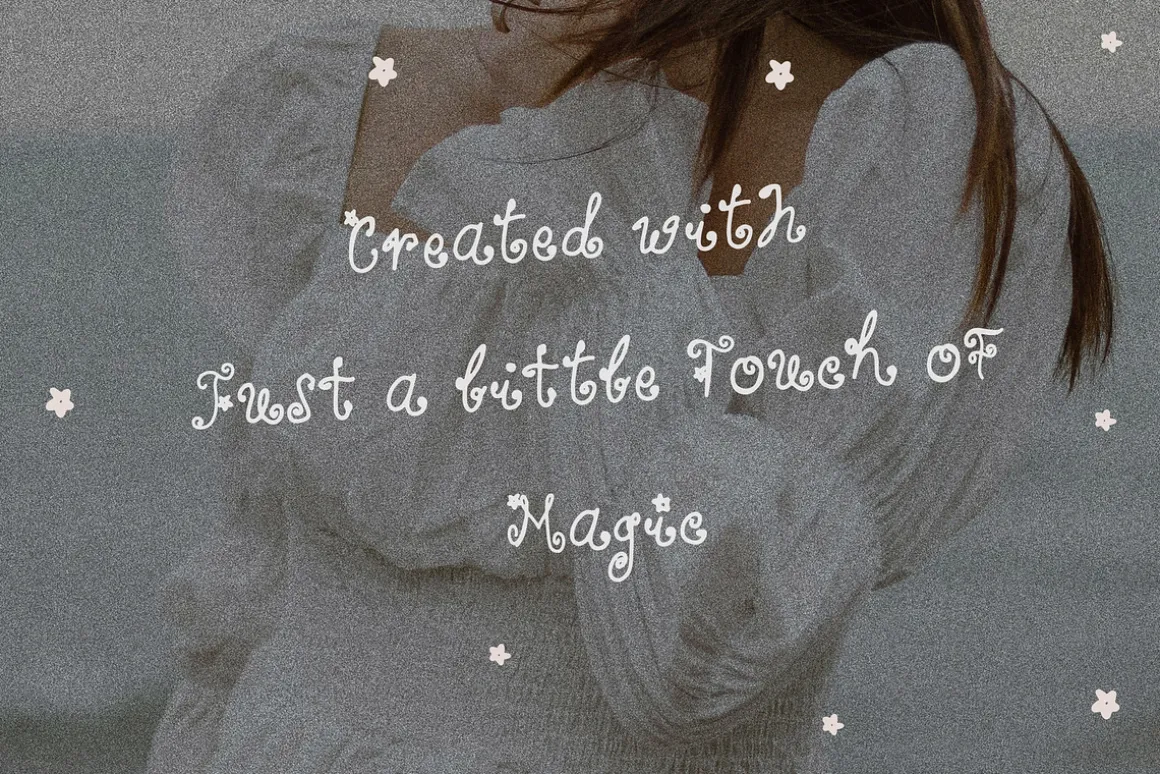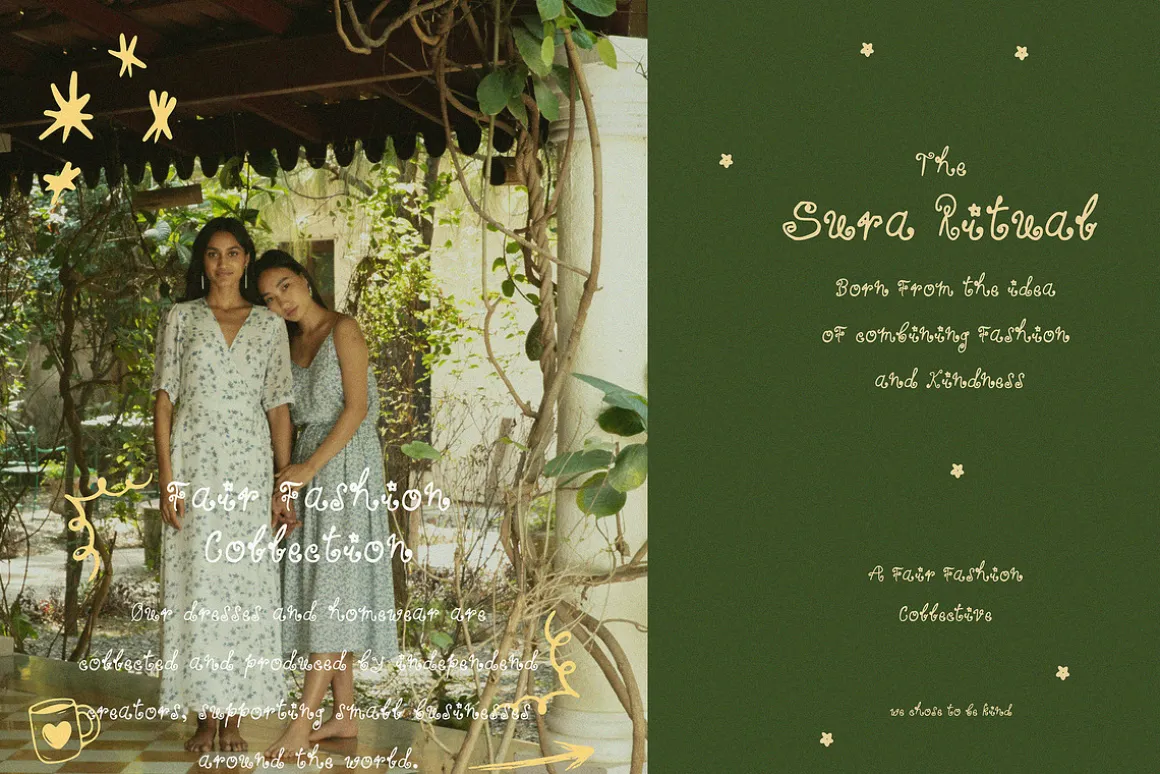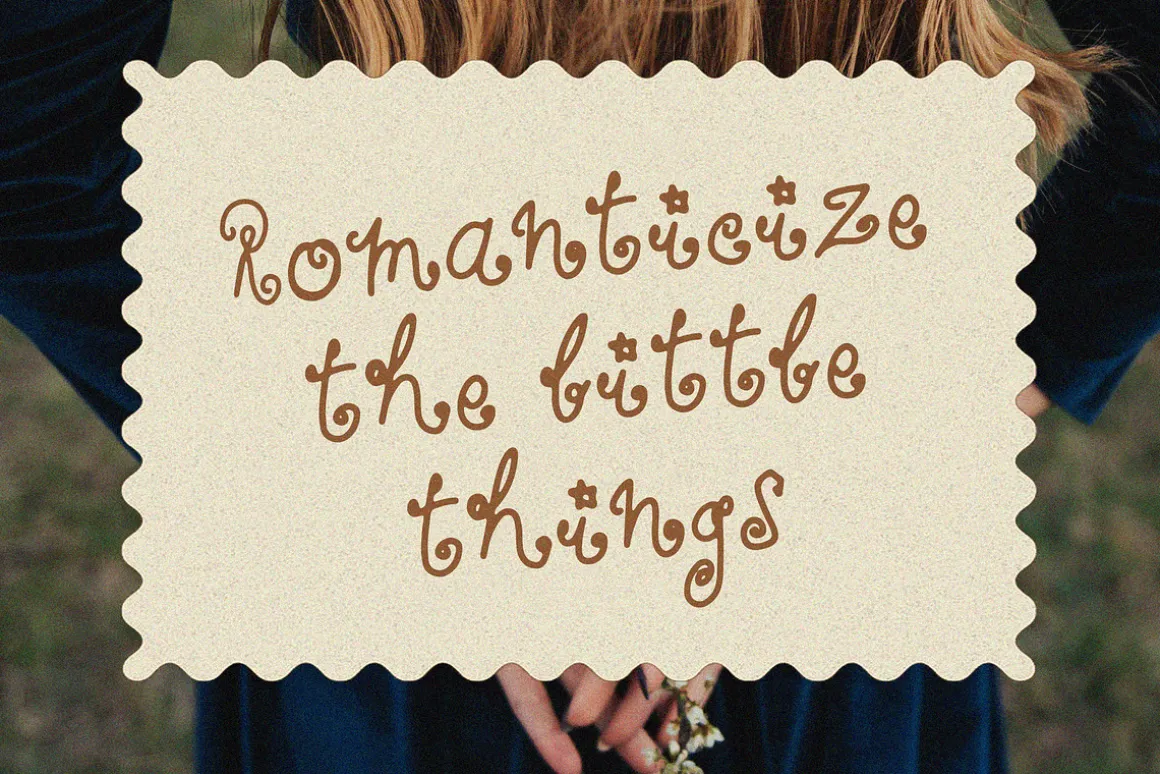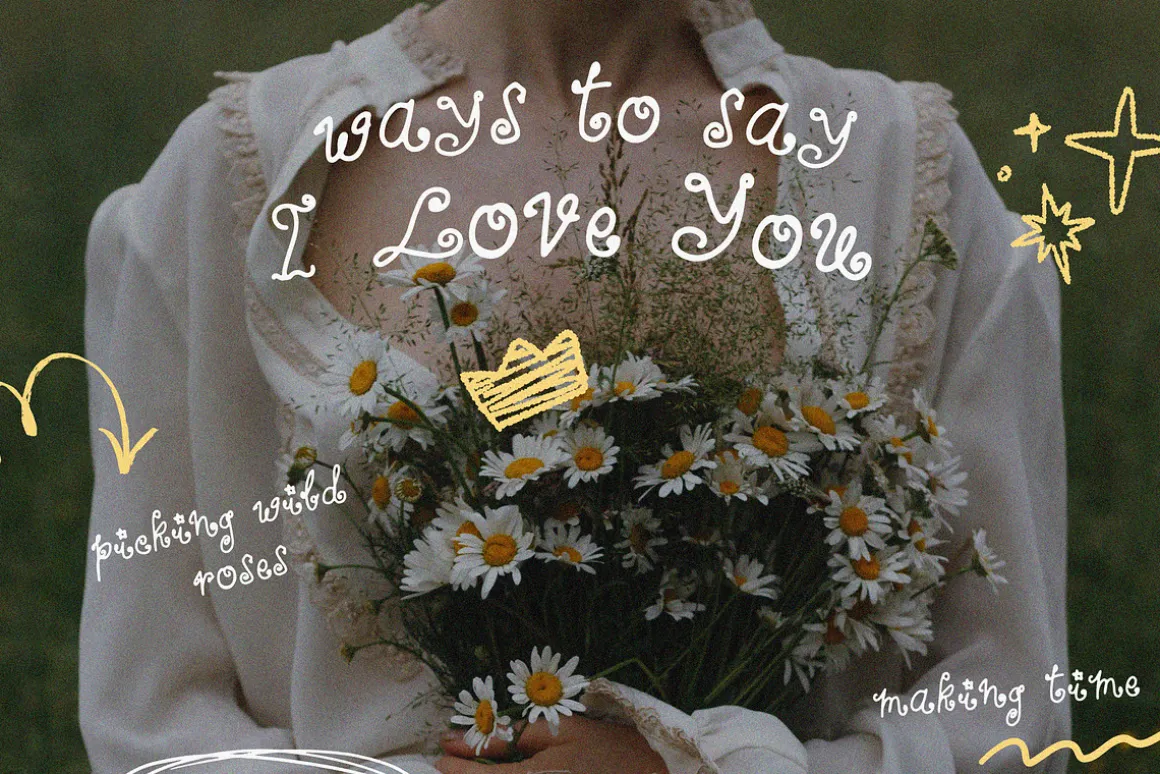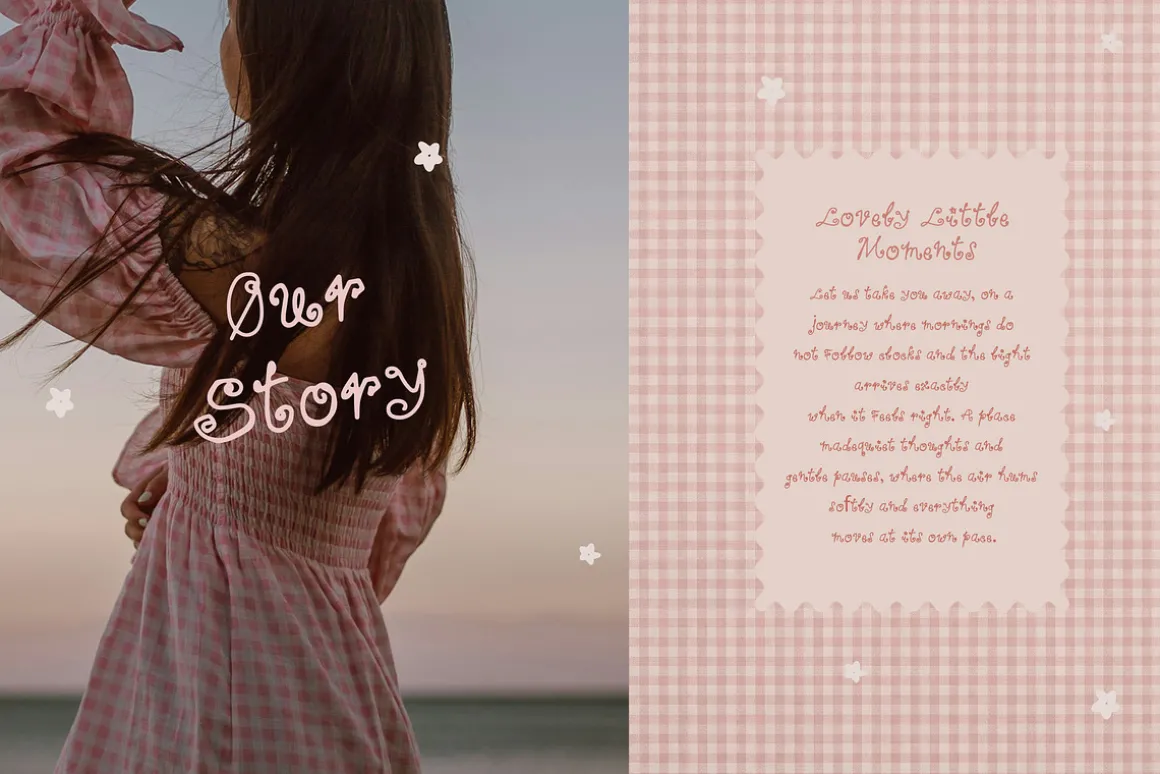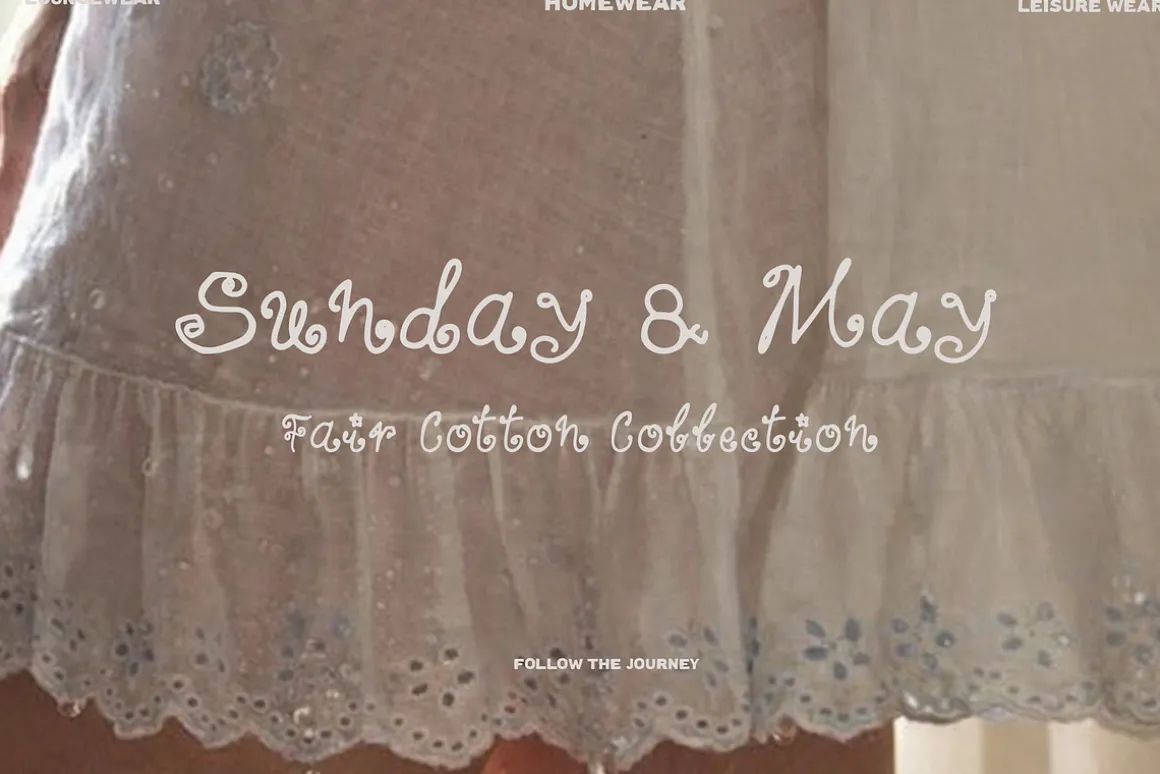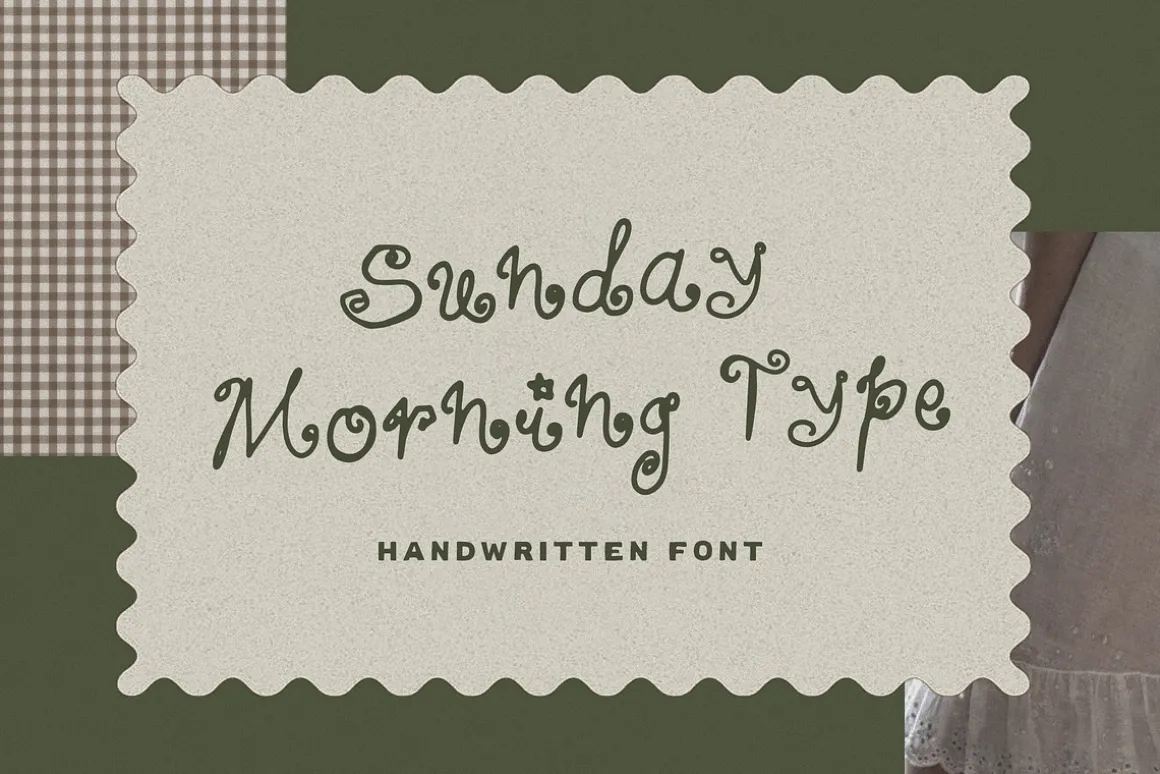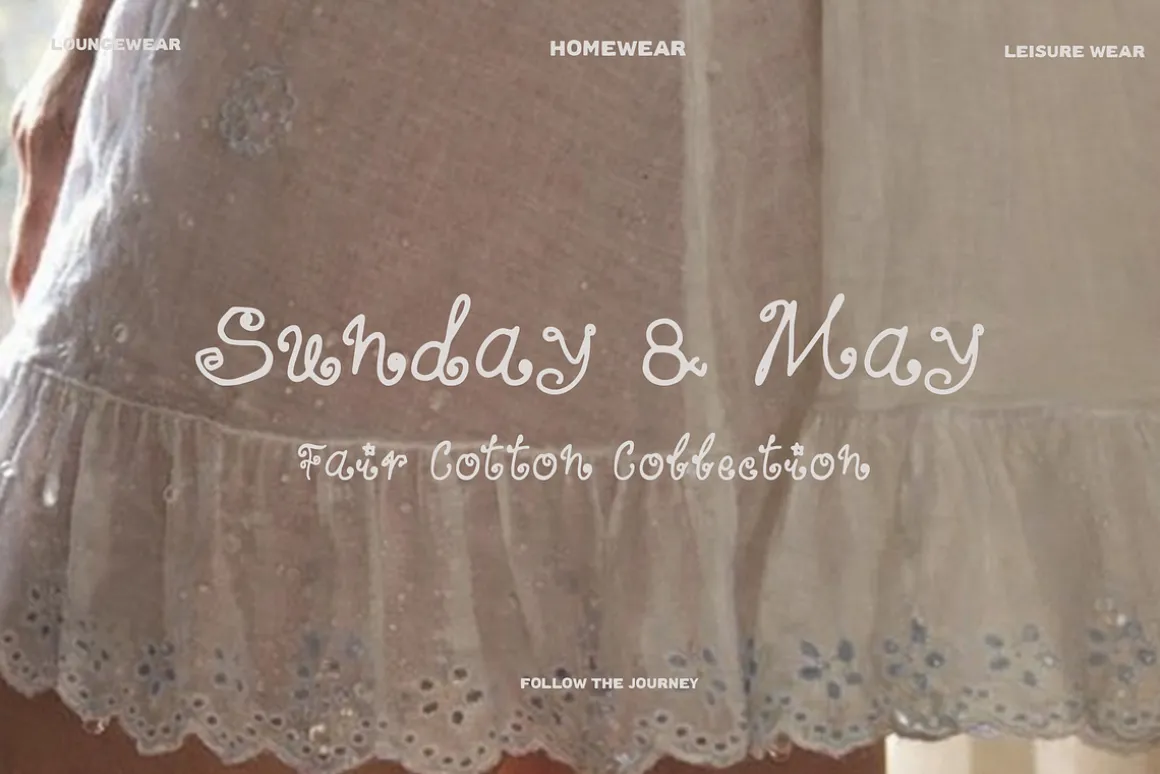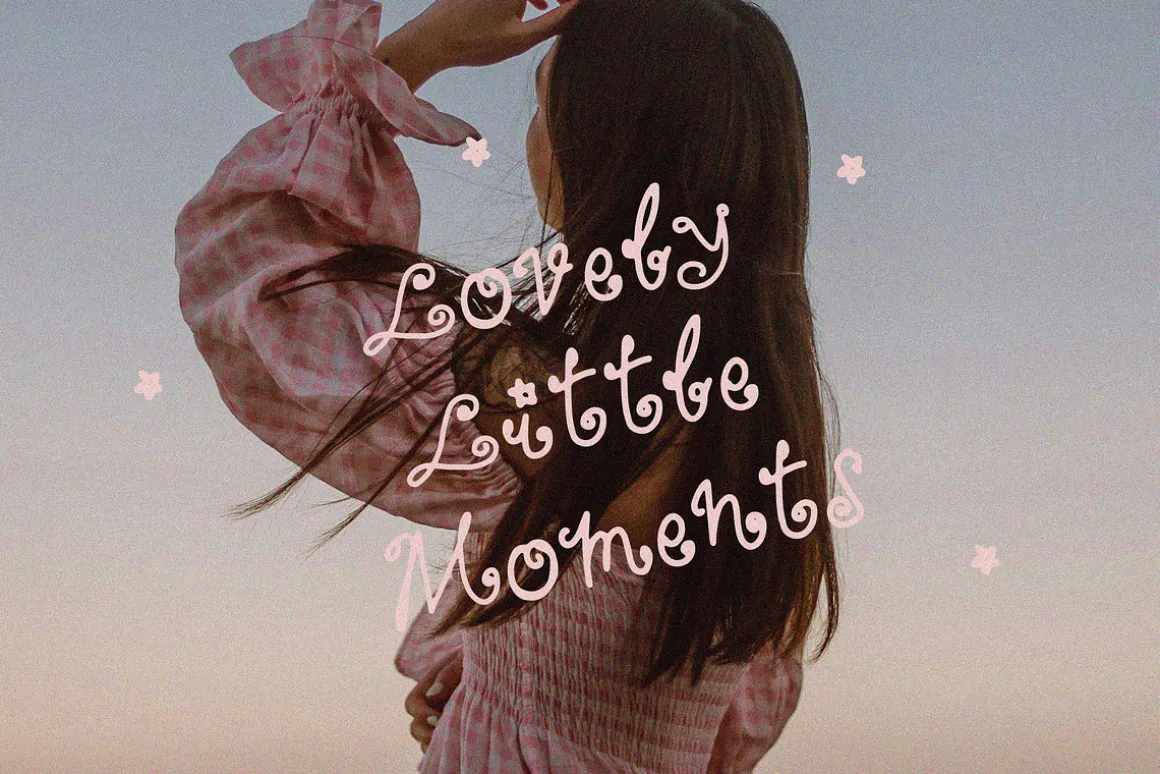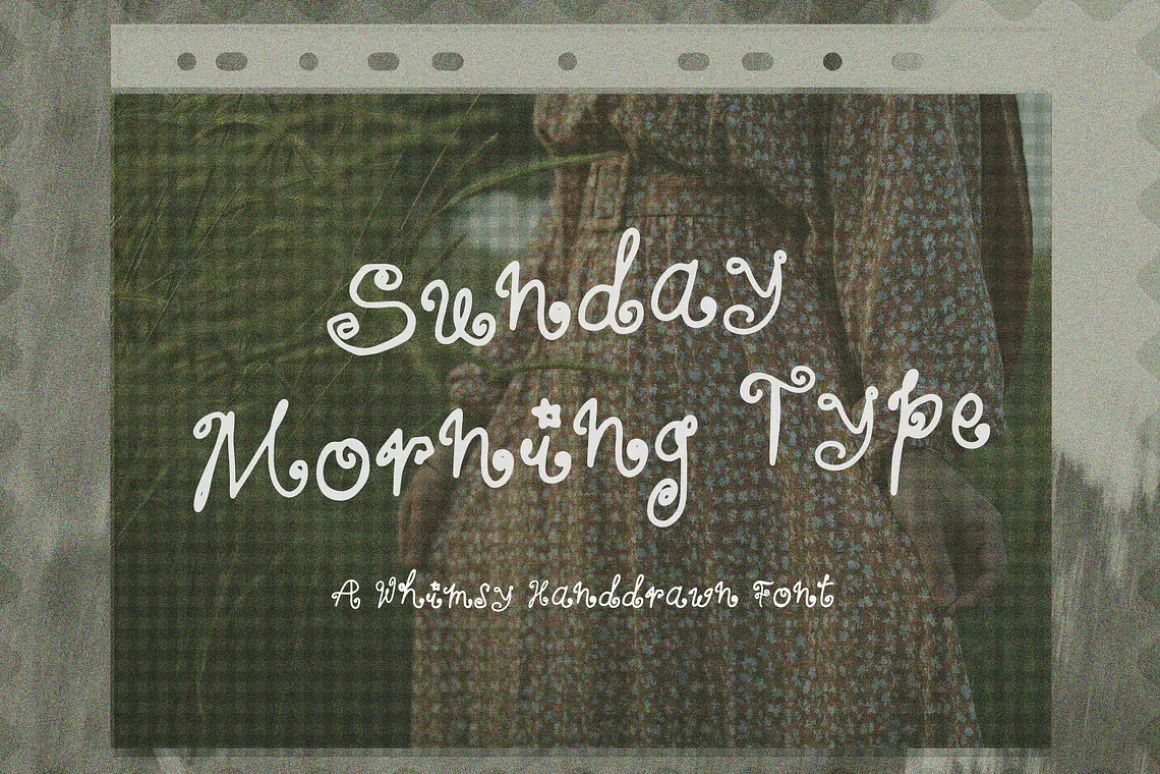
Sunday Morning Type is a whimsical handwritten font with a playful, quirky and slightly doodly feel. Inspired by cozy mornings, imperfect handwriting and soft creative chaos, this aesthetic font is perfect for creators who love romantic, nostalgic and dreamy design styles.
A perfect aesthetic little handwriting for your social media, printable wall art, branding, packaging, wedding invites or logo designs.
- Lots of alternate characters and symbols to discover!
Whether you’re designing mood boards, quotes, packaging or viral social content, Sunday Morning Type adds instant charm and personality! 🙂